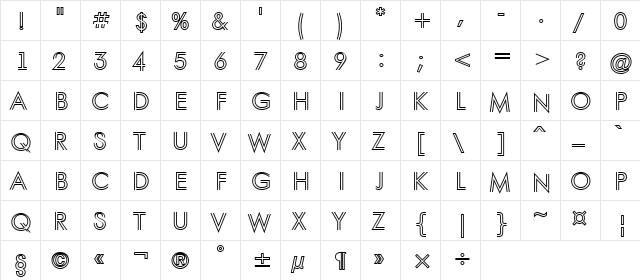
a_FuturaOrtoTitulInln Regular
Design Context for a_FuturaOrtoTitulInln Typeface
a_FuturaOrtoTitulInln has a distinctly futuristic character, with geometric precision and clean angles that feel at home in technology, gaming, and sci-fi contexts.